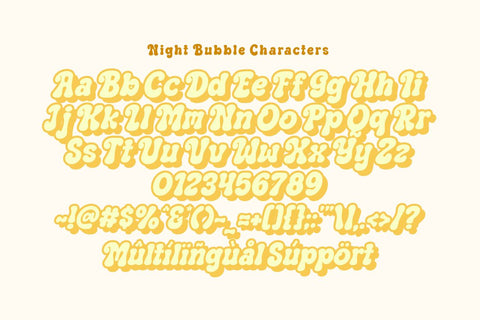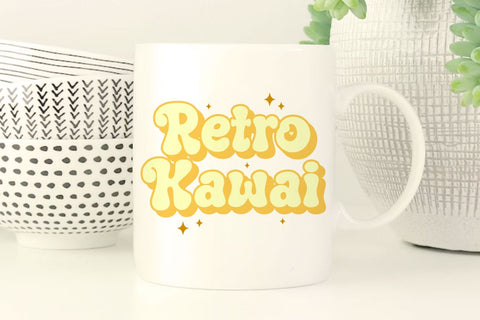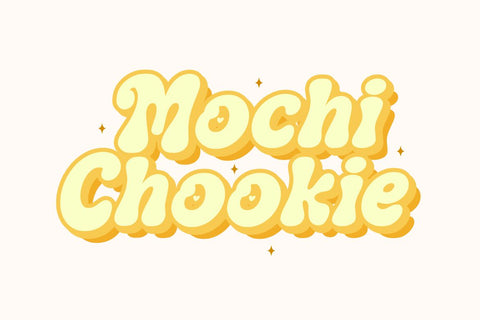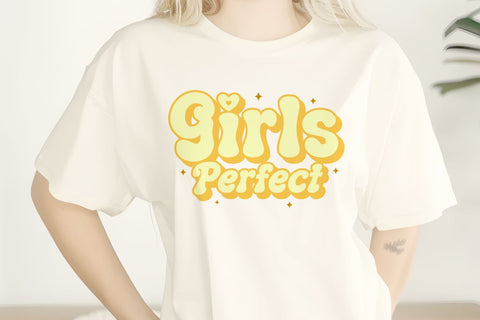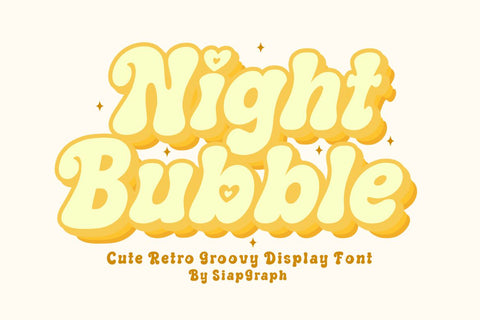
Night Bubble - Retro Groovy Font
Night Bubble is a charming and delightful Cute Retro Groovy Display Font specially crafted to bring a warm, nostalgic, and playful vibe to your creative projects. Featuring bold, chunky, and wavy letterforms integrated with adorable little heart accents, this typeface is designed to make your projects stand out with a cheerful and affectionate personality. Its clean and solid construction is optimized for the crafting community, ensuring a seamless and frustration-free experience for vinyl cutting, sublimation, and high-quality digital printing.
Perfect for: creating high-impact SVG cut files, personalized stickers, retro party invitations, cute t-shirt designs, greeting cards, custom mugs, nursery decor, and vibrant social media graphics. Whether you are a professional Print on Demand (POD) seller or working on a special DIY craft project, this font provides the ideal balance of readability and whimsical charm.
Great for themes such as Retro/Groovy aesthetics, Birthdays, Valentine's Day, Children's events, and Daily positive quotes, adding a bouncy, sweet, and stylish personality to all your design collections!